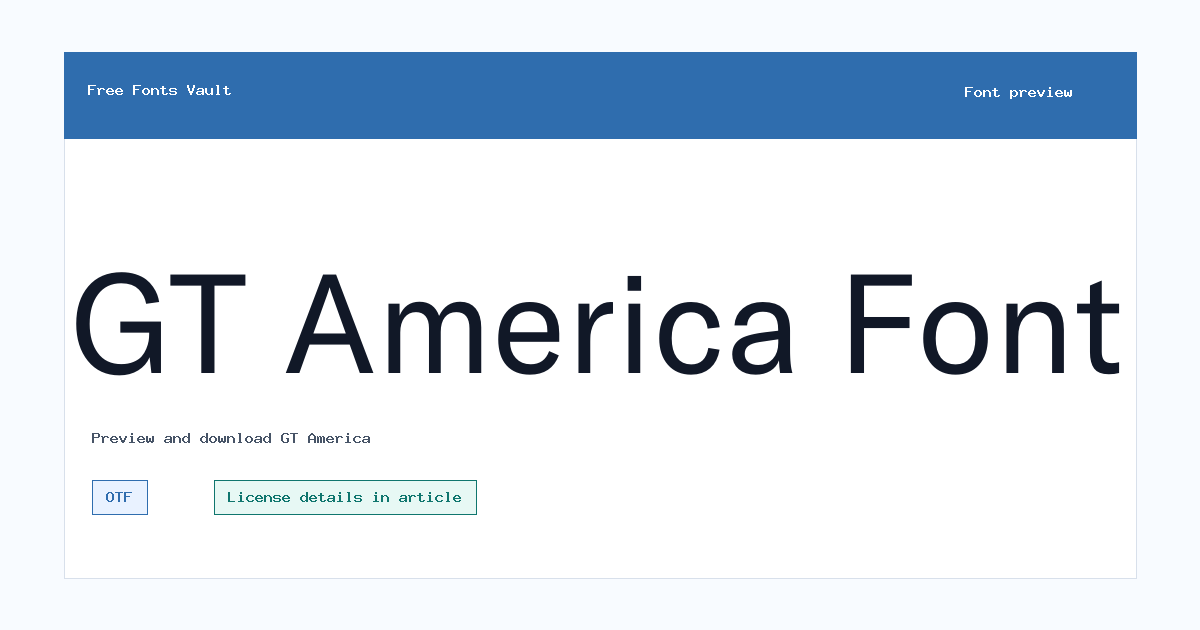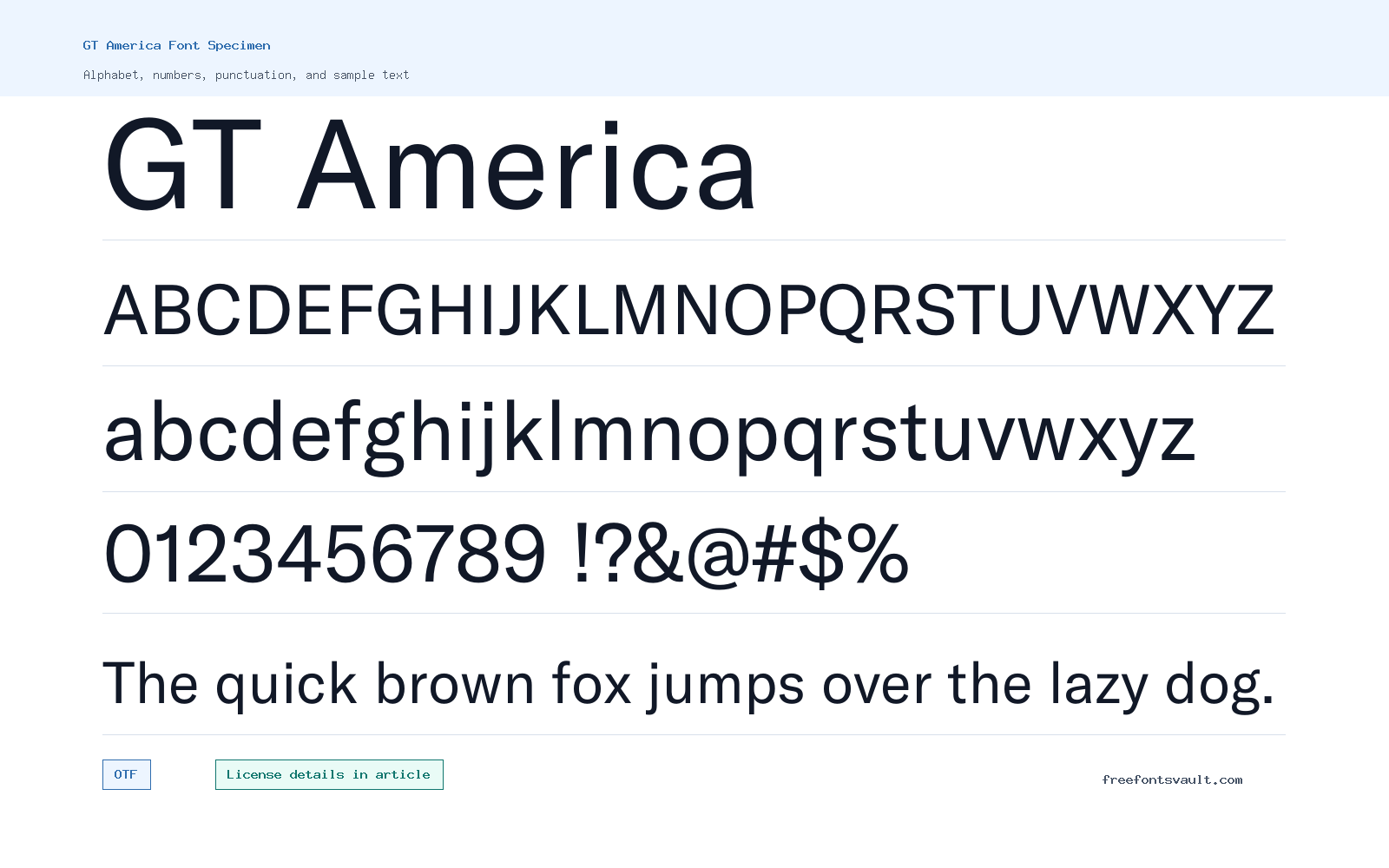
GT America
- Designer Noël Leu
- Foundry Grilli Type GmbH
GT America font.
GT America is a clean, modern sans serif font family shown here with a regular OTF style. Use the preview to test headlines, labels, and short paragraphs before downloading.
About GT America
GT America has the direct, structured feel many visitors expect from a contemporary sans serif. In the regular weight, it should work best where the text needs to look clear without becoming too decorative. The upright style and 400 weight make it a practical choice for testing everyday typography: navigation labels, title lines, captions, simple editorial layouts, and short blocks of copy. Because only the regular style is listed here, the safest way to judge it is to try the exact words you plan to use. Type a brand name, a menu item, a headline, and a sentence with mixed uppercase and lowercase letters. That will show how the spacing, rhythm, and letter shapes behave in real use.
- Regular 400 weight in upright normal style, useful for testing balanced sans serif typography.
- Clean sans serif appearance that can be tested across headings, labels, short copy, and UI-style text.
- Website headings, navigation labels, and short interface text where a clean sans serif tone fits.
- Posters, social graphics, and title cards that need simple lettering without ornate details.
- Editorial mockups, brand direction tests, and layout drafts that need a neutral regular-weight sans serif.
- Short paragraphs, captions, and presentation text after checking readability at the intended size.
GT America is credited here to designer Noël Leu and foundry Grilli Type GmbH.
Preview your own wording before using the font in a design. Check uppercase words, numbers, punctuation, and small-size text. Since only the regular style is listed, pair it carefully if you need bold emphasis, strong hierarchy, or long-form reading support.
What is GT America best used for?
It is best tested for clean headlines, labels, short paragraphs, layout mockups, and interface-style text. For long documents or complex design systems, check whether you need more weights and styles.
Who designed GT America?
The designer credit listed for this font is Noël Leu, with Grilli Type GmbH listed as the foundry.